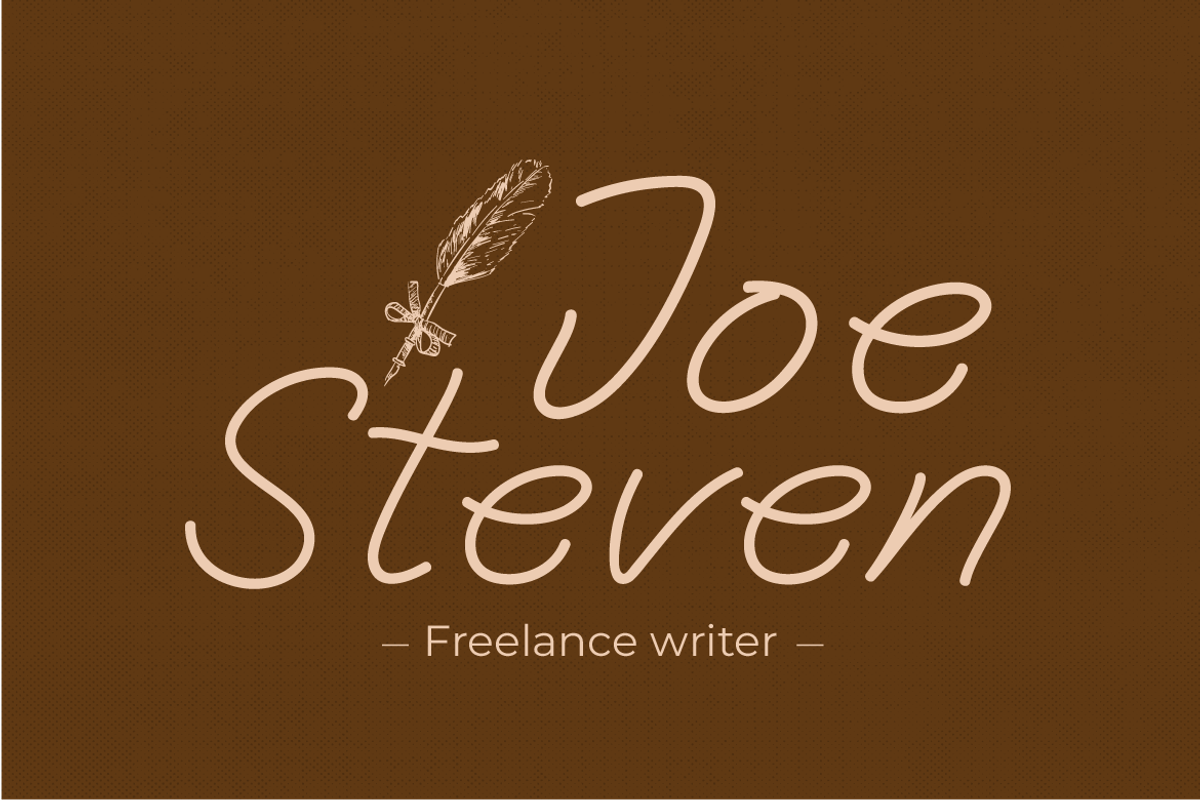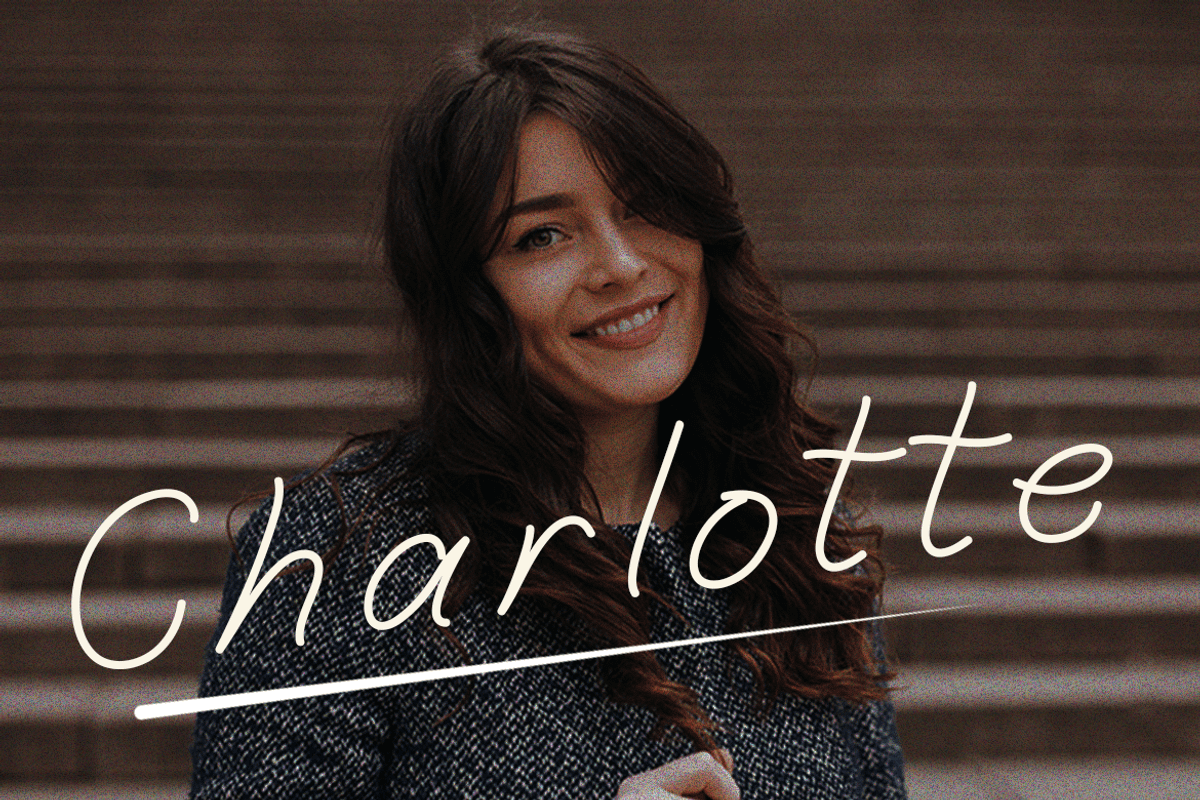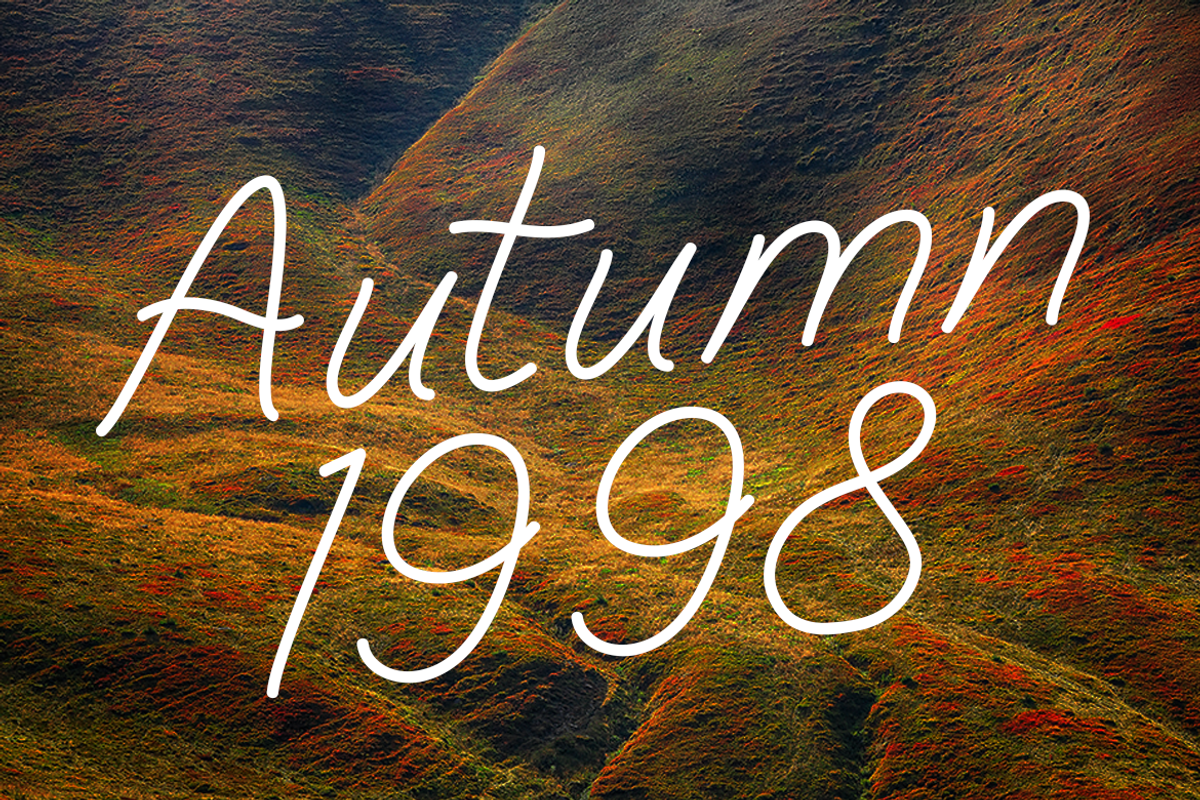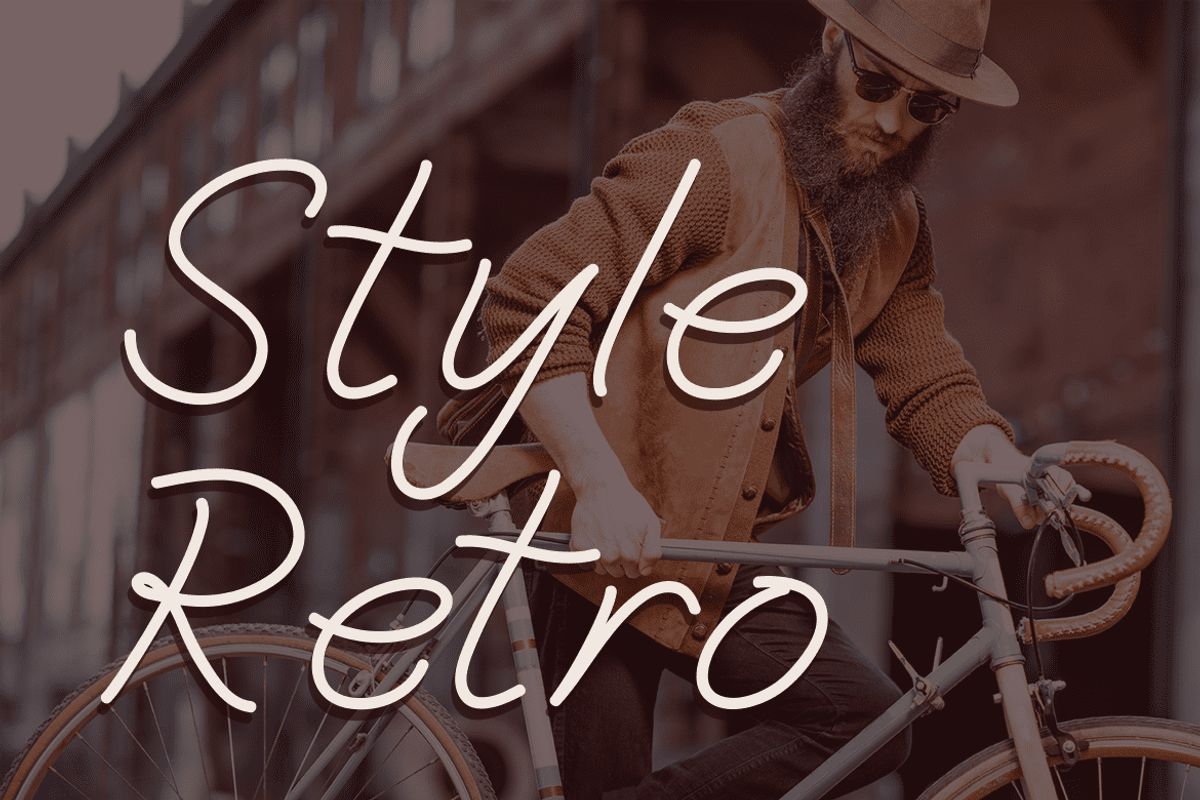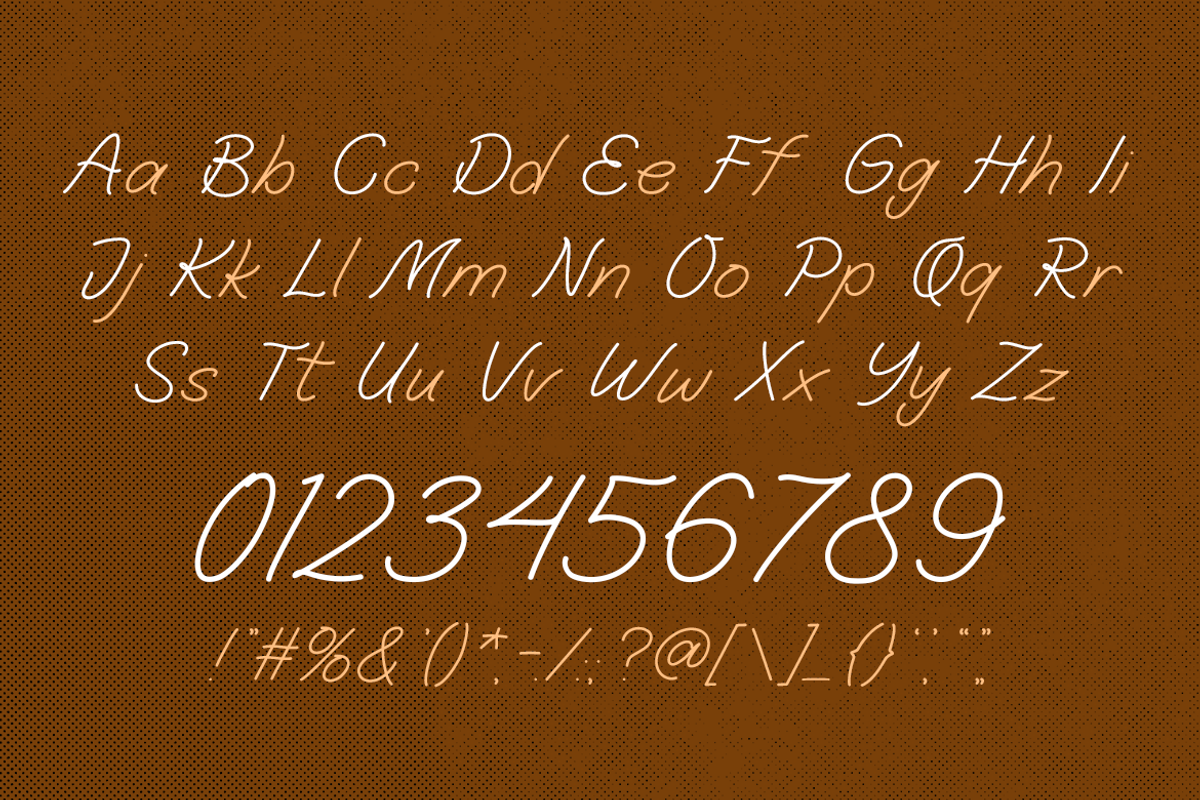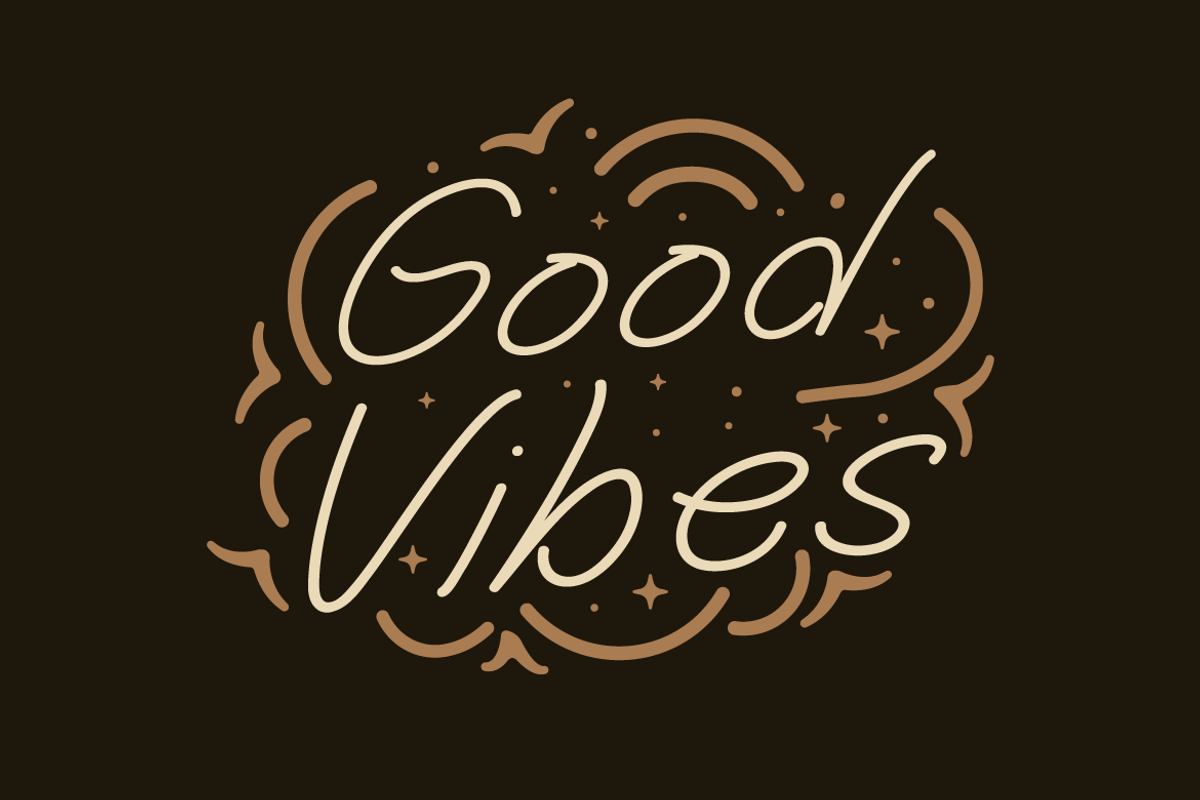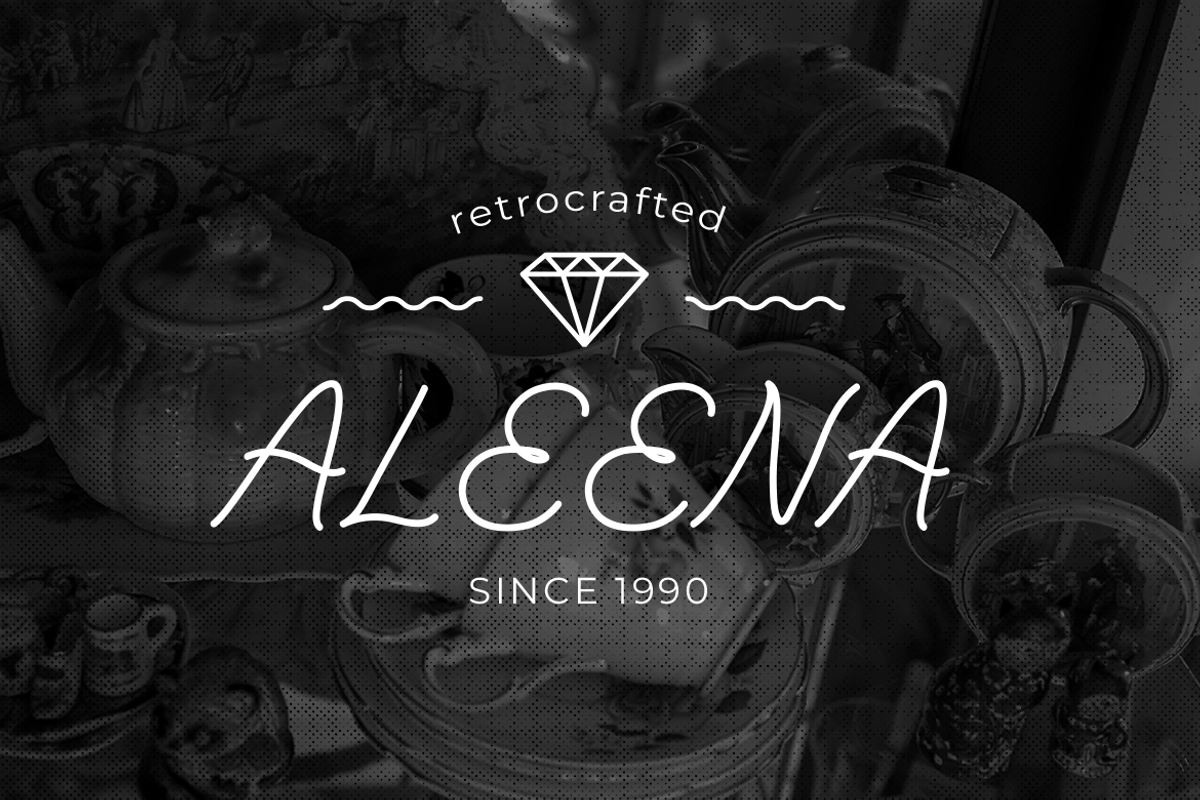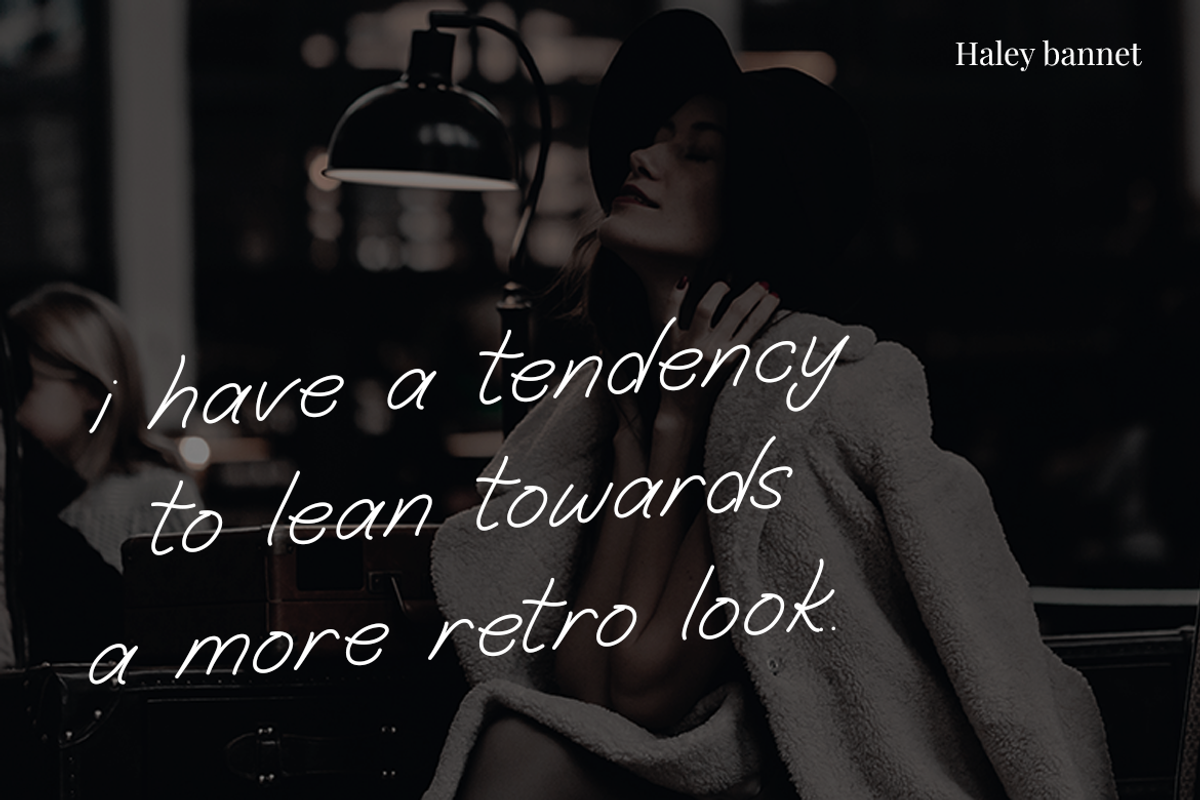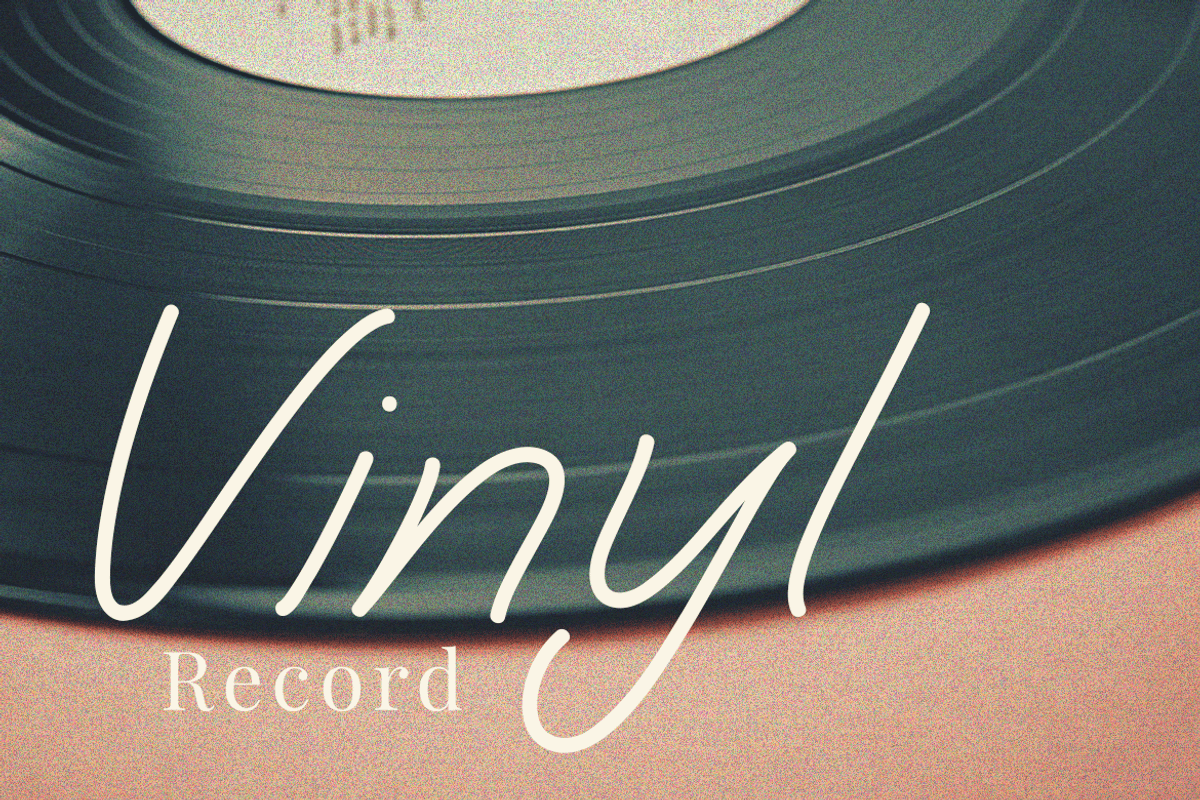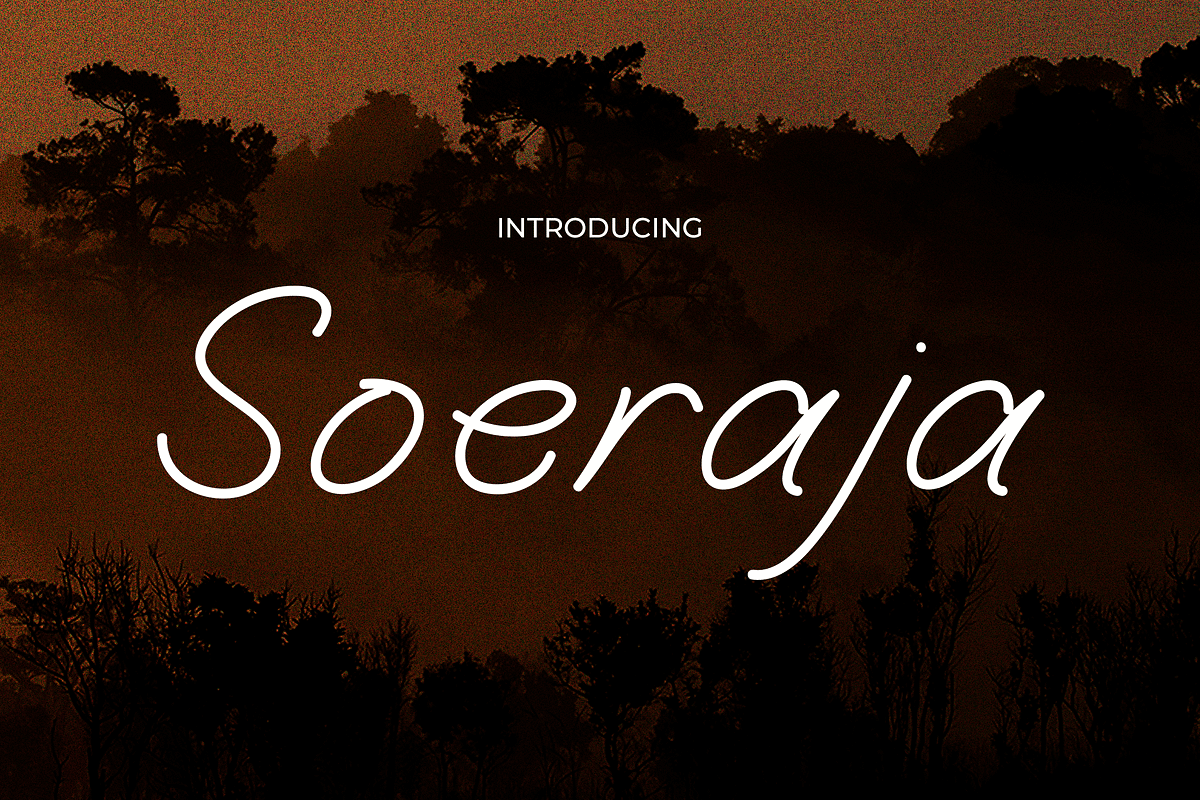
Soeraja
Soeraja – A Handwritten Serif Retro Font
Soeraja is a unique font that beautifully marries the personal touch of handwritten art with the classic appeal of serif styling, all wrapped in a retro ambiance. This font is a testament to timeless elegance, making it an exquisite choice for a variety of design projects. Its serif elements bring a touch of sophistication to logos, imparting a classic yet approachable look.
The handwritten aspect of Soeraja adds a personal, heartfelt touch to quotes, enhancing their meaning and impact. In invitations, this font exudes a warm, welcoming vibe, perfect for creating an inviting and memorable first impression. When applied to posters and greetings, it conveys messages with a personalized and artistic touch, making each word resonate with sincerity. Soeraja’s versatility extends to packaging and branding, where it lends a unique identity that is both elegant and relatable. For book covers, headlines, and advertising, Soeraja ensures your message stands out with its harmonious blend of retro charm and handwritten intimacy.